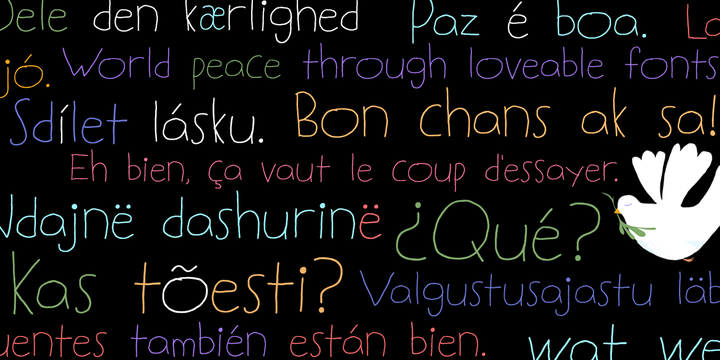
• Judlebug
Confident, endearing, youthful Judlebug is brimming with personality that’s hard to deny. Seven years in the making, Judlebug is ready to light things up!